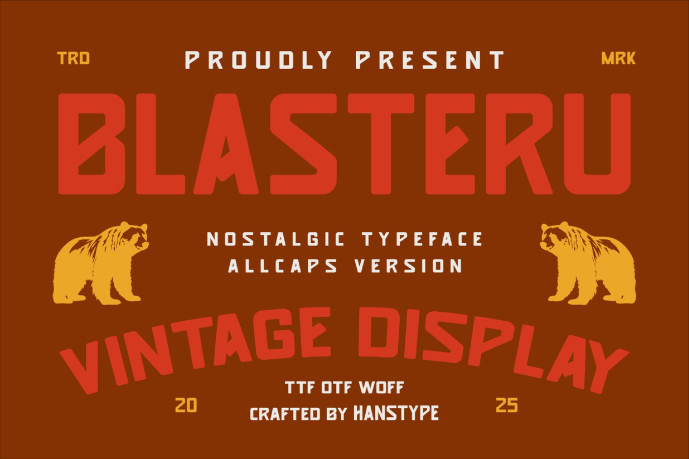
Blasteru – Crafted Typeface is a retro-inspired, hand-drawn typeface that brings a nostalgic yet fresh vibe to your designs. Its bold strokes and quirky imperfections exude a handcrafted charm, making it perfect for projects that aim to stand out with personality. Ideal for vintage posters, branding, social media graphics, and product packaging, Blasteru Font captures the essence of retro aesthetics while adding a modern twist.
Whether you’re channeling the energy of the ’70s or creating a timeless artistic appeal, Blasteru Font ensures your message is both memorable and visually striking.